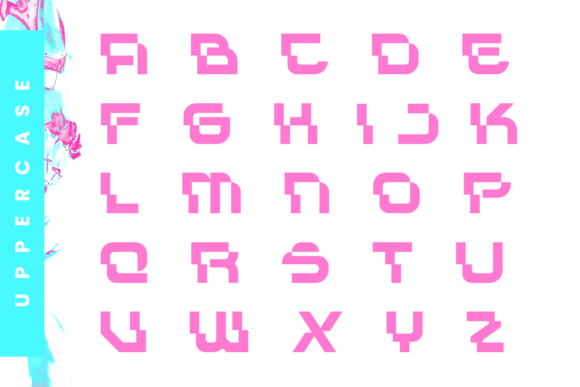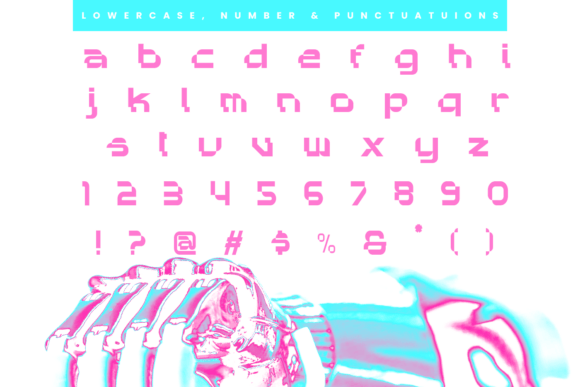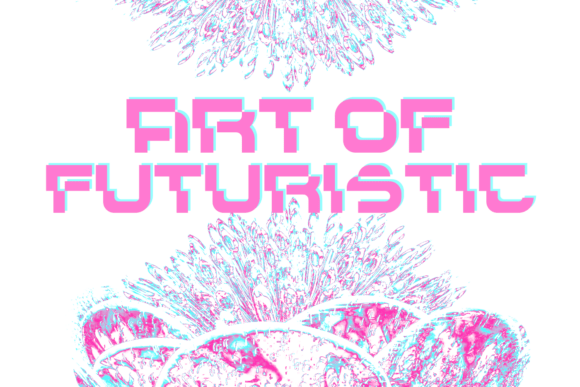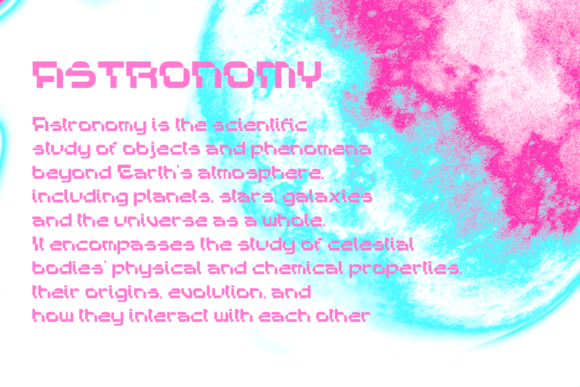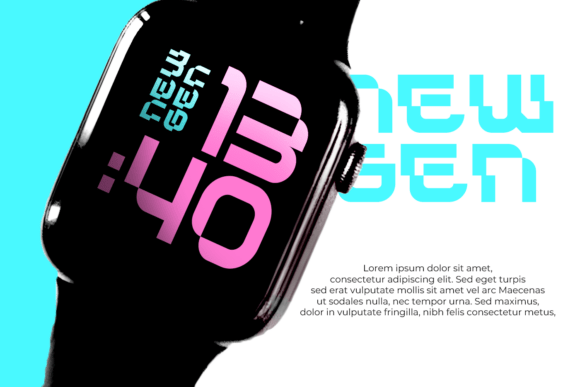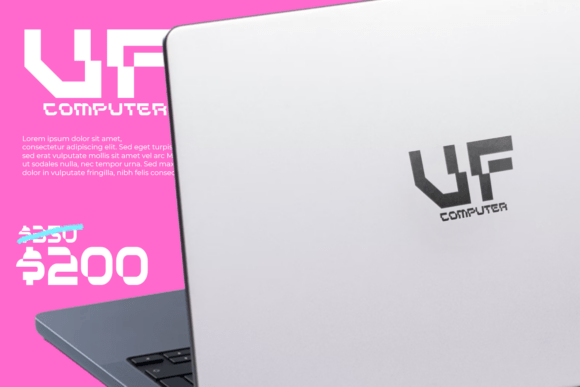
Unlocking the Future of Design: Introducing the Glitech Font
You’ve stared at a blank screen, your mind racing with creative ideas, and suddenly – it hits you. The perfect font to bring your futuristic design to life. That’s exactly what we’ve got for you – the Glitech Font. This modern display font is inspired by the glitch shape, giving it a unique and eye-catching look that’s sure to turn heads.
Glitech Font is more than just a font; it’s a powerful tool for designers looking to create visually stunning projects. With its versatility, it’s perfect for branding projects, logos, wedding designs, social media posts, and more. Whether you’re a seasoned designer or just starting out, the Glitech Font is an invaluable addition to your toolkit.
Glitech Font Key Features
- Font Family: Glitech Font comes in 3 font families: Glitech, Glitech Outline, and Glitech Fill.
- Character Count: The font includes a wide range of characters, including Latin, Cyrillic, and Greek alphabets, with over 600 glyphs.
- Unique Characteristics: Glitech Font features a futuristic and high-tech aesthetic, with a distinctive blend of geometric shapes and metallic textures.
Glitech Font Review
Overall, I think Glitech Font is a visually striking addition to any digital design project. ✨ Its futuristic aesthetic and geometric shapes make it perfect for tech-related designs, sci-fi concepts, or anything that needs a touch of modernity. The font’s versatility allows it to be used for headings, titles, or even short paragraphs of text.
The font’s flexibility and customization options are another major plus. ✨ You can adjust the weight, spacing, and even add custom glyphs to make it fit your project’s specific needs. This level of control is invaluable for designers who want to push the boundaries of their creative vision.
- ⚠️ Limited legibility at small font sizes: While Glitech Font looks stunning at larger sizes, it can become difficult to read at smaller sizes. This might make it less suitable for body text or long passages of text.
- ⚠️ Limited language support: Glitech Font is primarily designed for Latin-based languages, so it may not be suitable for projects that require support for other languages.
In conclusion, Glitech Font is a fantastic choice for designers who want to add a touch of futurism to their projects. While it may have some limitations, its customization options and striking design make it a valuable addition to any design toolkit.
The Glitech Font is ideal for:
- Creating futuristic and tech-inspired designs.
- Adding a modern and edgy touch to your branding materials.
- Designing video game-inspired graphics and artwork.
Q: Can I customize the Glitech Font’s ligatures and swashes?
Ligatures and swashes are pre-designed and pre-positioned in the Glitech Font. While you can’t customize their design, you can adjust their placement and usage in your design application. Some applications, like Adobe Creative Cloud, allow you to control the ligature and swash substitution, giving you more flexibility in your design.